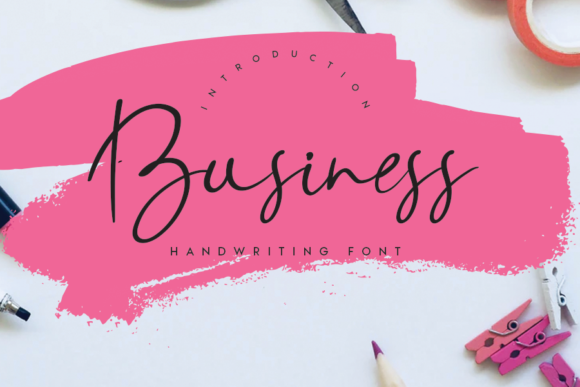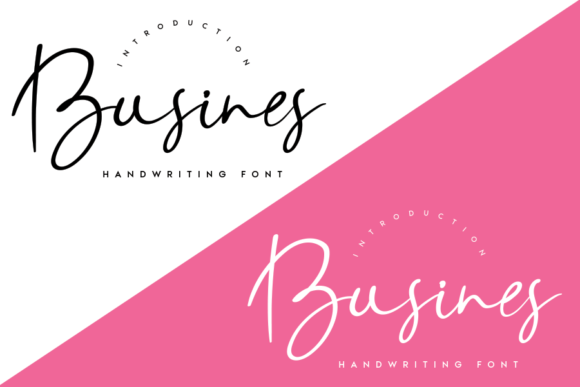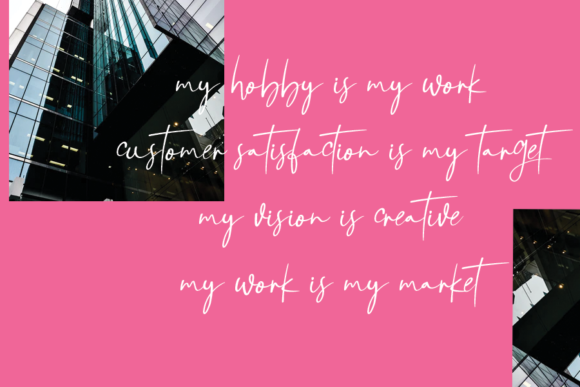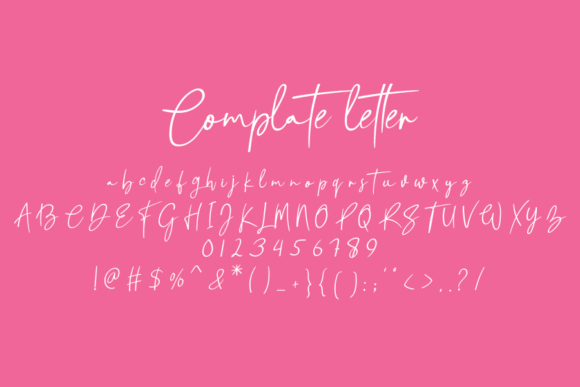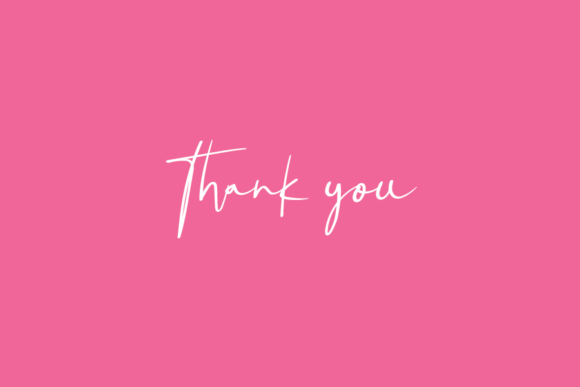
Business Font
About Business Font
Busines is a relaxed and flowing handwritten font. Fall in love with its incredibly distinct and timeless style and use it to create spectacular designs!